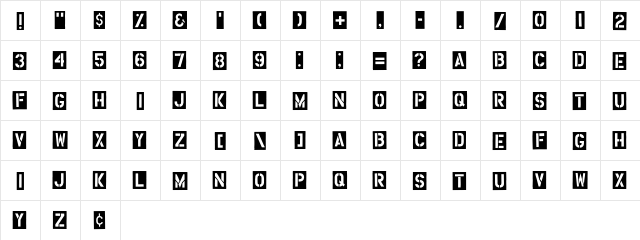
Housebroken Rough
Design Context for Housebroken Typeface
Housebroken trades polish for personality, using distressed and eroded forms to bring grit and attitude to creative work.
Suited to punk-influenced zines, underground music branding, streetwear, and raw, anti-corporate design.
Pro Tip: Pair Housebroken with intentionally raw or lo-fi design elements. Fighting against it with overly polished surroundings will undermine its personality.